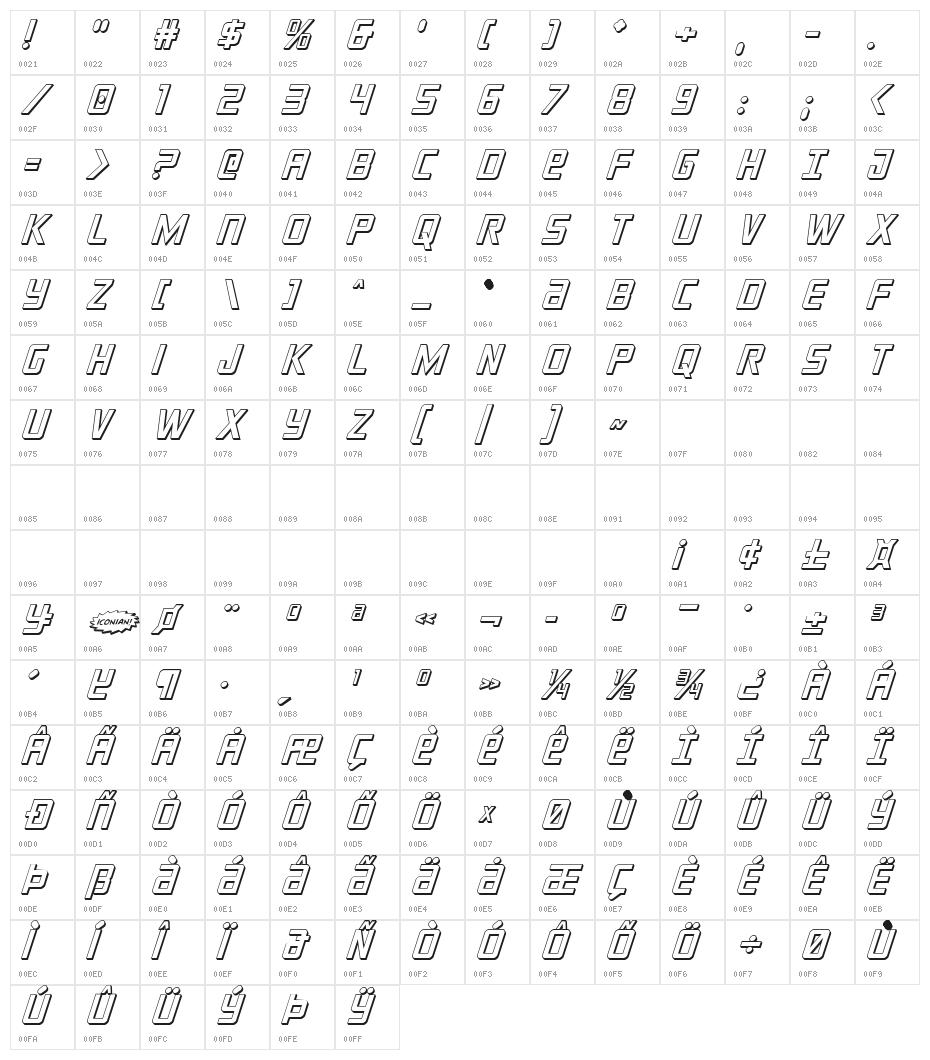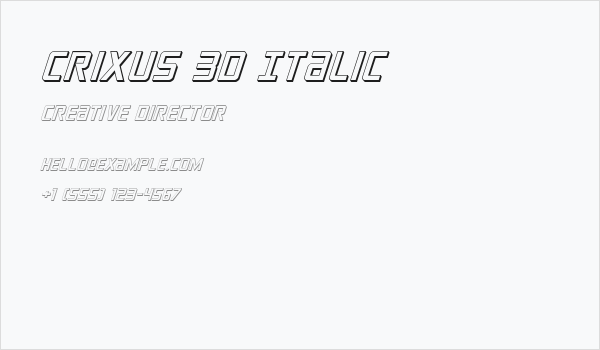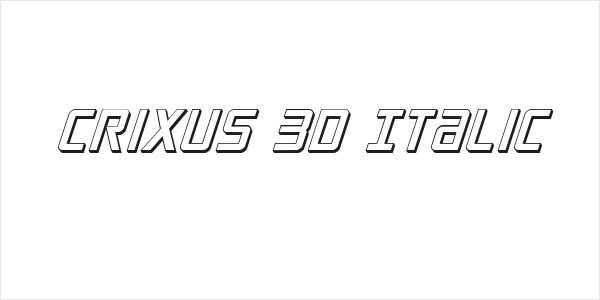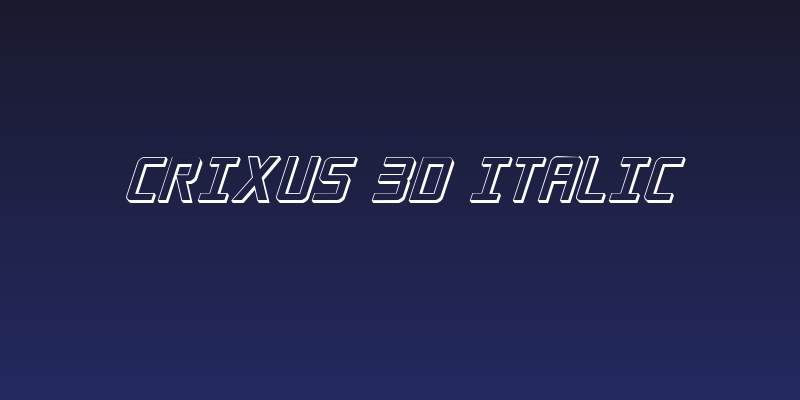
Crixus 3D Italic Font
Crixus 3D Italic Description
This font features a bold, three-dimensional style with a distinct italic slant, giving it a dynamic and modern appearance. The characters are outlined, creating a layered effect that adds depth and visual interest. The uppercase and lowercase letters maintain a consistent geometric structure, with sharp angles and clean lines. The numerals and special characters follow the same design principles, ensuring uniformity across the entire typeface. This font's unique style makes it stand out, suitable for projects that require a futuristic or tech-inspired look.
| Proposed Projects | Ideal for tech-themed posters, video game titles, futuristic branding, and digital media. |